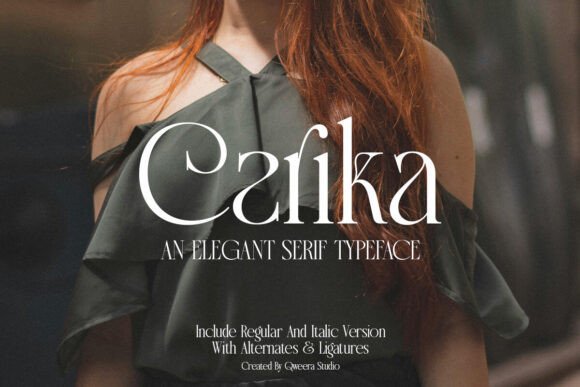
Carika Font: Elegant Serif for Modern Branding & Logo Design
About the Carika Font
Add a touch of class to your work with the Carika Font, a truly exceptional typeface. Carika is more than just a font—it’s a symbol of sophistication and refinement, designed to add a touch of luxury to your creative projects. With its regular and italic versions, Carika combines classic elegance with modern style, making it the perfect choice for branding, editorial design, and other projects that demand a classy and elegant typographic solution.
Carika Font Usage Examples